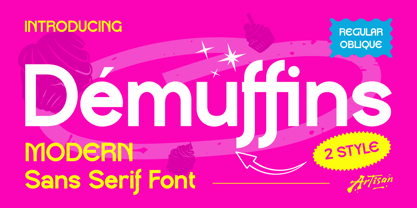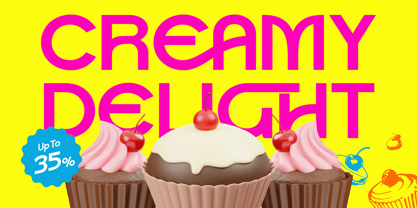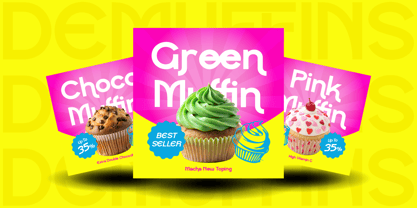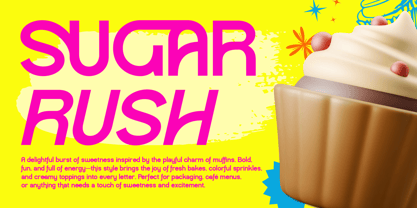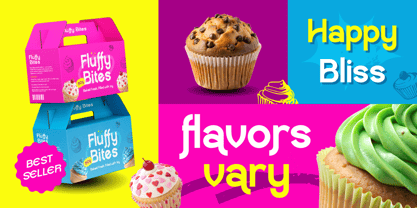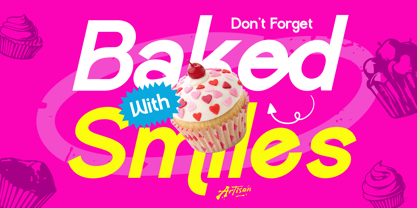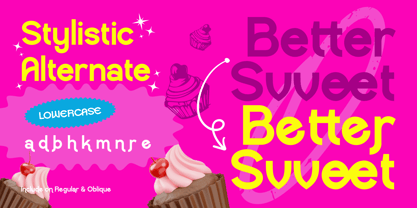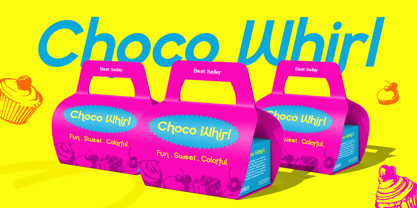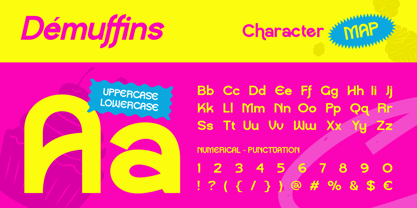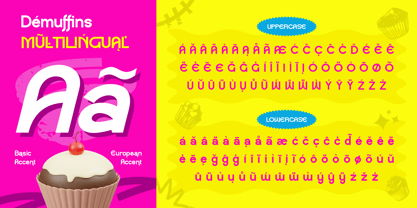
Demuffins
The Demuffins Font Family was designed by Meidy Meichico and published by Artisan Themes. Demuffins contains 2 styles and family package options. More about this family
Say hello to Demuffins, a modern sans serif font with a sweet twist! ✨
This font comes in 2 styles (Regular & Oblique), giving you flexibility to keep it clean or add a little playful vibe. With smooth curves and rounded edges, Demuffins feels fun, friendly, and super easy to read.
Perfect for branding, food packaging, social media posts, cafe menus, kids’ projects, and lifestyle blogs, this font brings that cheerful and modern look to your designs. Whether you’re making a cookie shop logo, a colorful poster, and any project design.
It’s fresh, stylish, and versatile, so let’s add a little sweetness to your designs with Demuffins Font today!